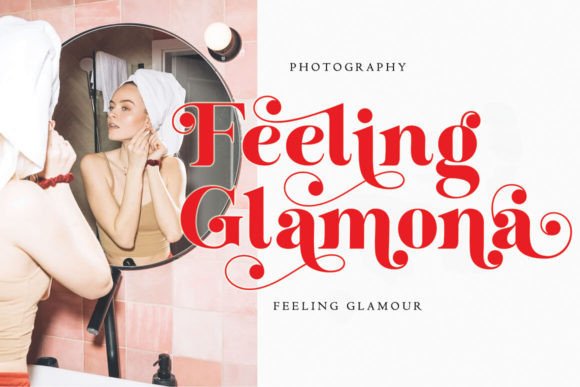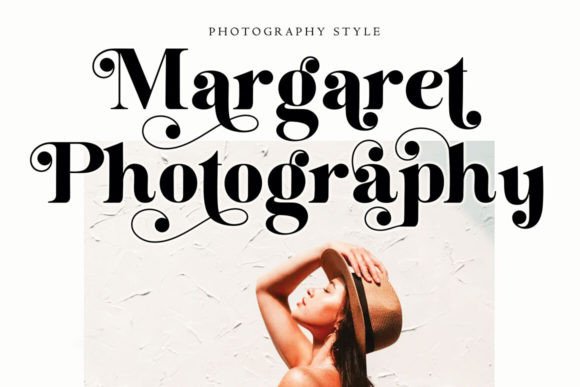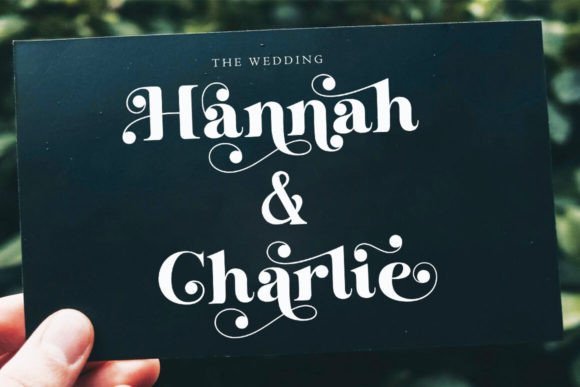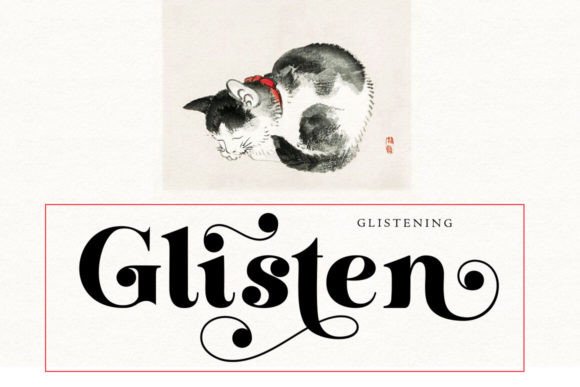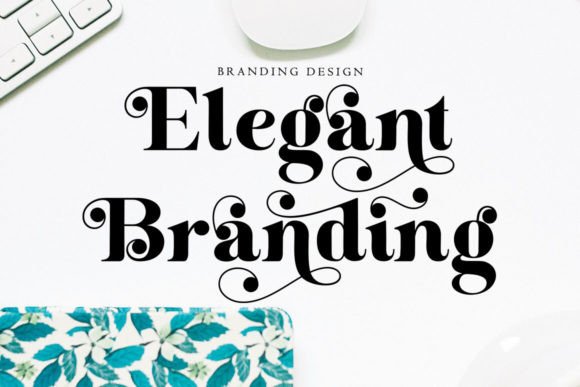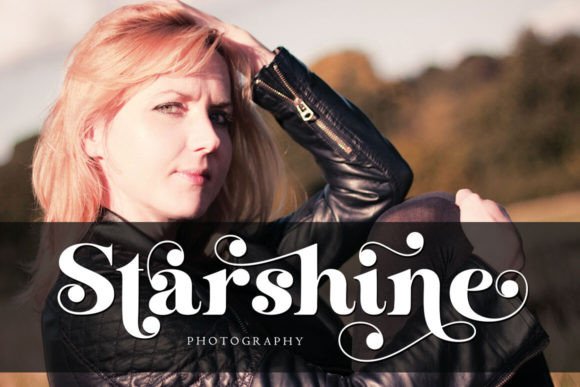
Introducing Barbie Sophia Font: Elevate Your Designs with Luxury and Elegance
In the world of typography, fonts play a crucial role in bringing a design to life. For crafters, designers, and artists, finding the perfect font can be a daunting task. However, if you’re looking for a font that exudes luxury, elegance, and modernity, look no further than the Barbie Sophia Font. This beautiful and versatile serif font is designed to take your designs to the next level.
What Makes Barbie Sophia Font Stand Out?
Barbie Sophia Font is characterized by its luxurious style in a modern form, combined with a friendly and cheerful bold style. This unique blend makes it an ideal choice for designers who want to create stunning visuals that are both classy and approachable. The font features glyphs that provide crafters with more choices in designing, allowing for endless possibilities and creative freedom.
Key Features of Barbie Sophia Font
- Luxurious and Modern Style: Barbie Sophia Font boasts a sleek and sophisticated design that is perfect for high-end projects.
- Versatile and Adaptable: This font can be used for a wide range of applications, from branding and advertising to packaging and digital media.
- Glyphs and Variations: With a range of glyphs and variations, crafters can experiment with different styles and effects to create unique designs.
- Elegant and Edgy: Barbie Sophia Font strikes the perfect balance between elegance and edginess, making it ideal for designers who want to create bold and eye-catching visuals.
How to Use Barbie Sophia Font in Your Designs
Whether you’re a seasoned designer or a crafter just starting out, incorporating Barbie Sophia Font into your workflow is easy. Here are a few tips to get you started:
- Pair with Other Fonts: Experiment with pairing Barbie Sophia Font with other fonts to create stunning contrast and visual interest.
- Use for Headings and Titles: The bold and luxurious style of Barbie Sophia Font makes it perfect for headings and titles.
- Add a Pop of Personality: Use Barbie Sophia Font to add a touch of personality and whimsy to your designs.
Benefits of Using Barbie Sophia Font
So why choose Barbie Sophia Font for your next project? Here are just a few benefits:
- Save Time: With a wide range of glyphs and variations, you can create stunning designs quickly and efficiently.
- Stand Out from the Crowd: Barbie Sophia Font is a unique and distinctive font that will help your designs stand out in a crowded marketplace.
- Elevate Your Brand: Use Barbie Sophia Font to create a luxurious and sophisticated brand identity that will leave a lasting impression.
In conclusion, Barbie Sophia Font is a game-changer for designers and crafters looking to elevate their designs with luxury and elegance. With its unique blend of modern style and friendly boldness, this font is sure to become a staple in your design toolkit. So why wait? Download Barbie Sophia Font today and start creating stunning visuals that will leave a lasting impression.
Whether you’re working on a branding project, creating digital media, or crafting beautiful packaging, Barbie Sophia Font is the perfect choice. Its versatility, adaptability, and range of glyphs make it an ideal font for designers who want to push the boundaries of creativity. So go ahead, get creative, and see what amazing designs you can create with Barbie Sophia Font!